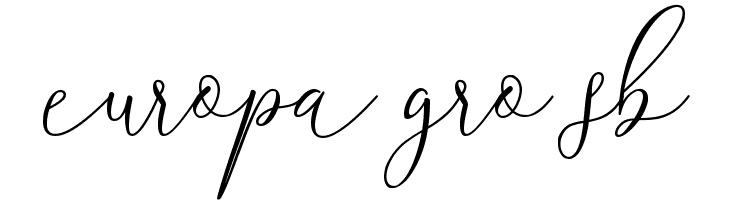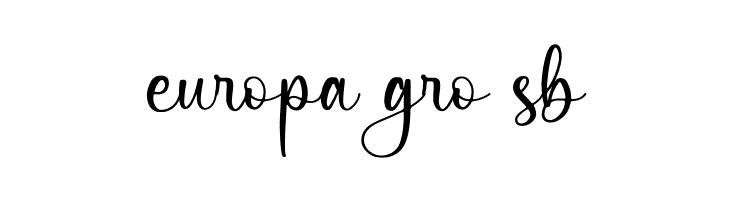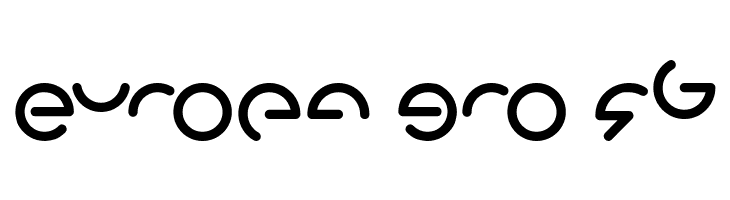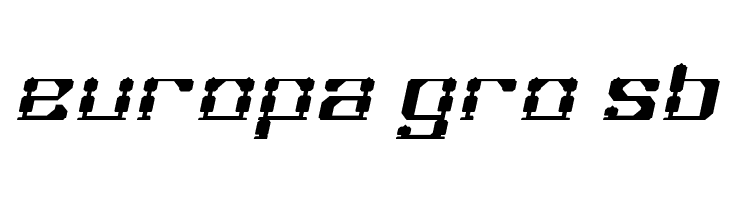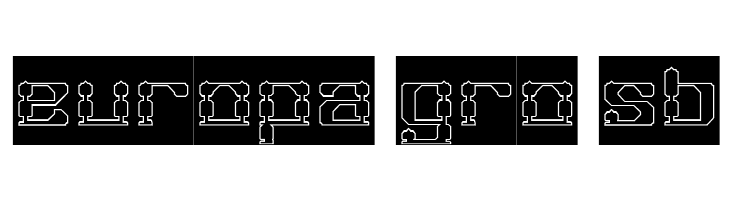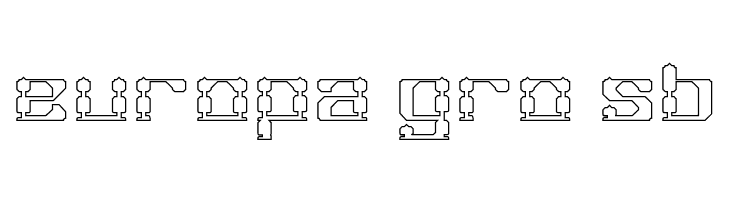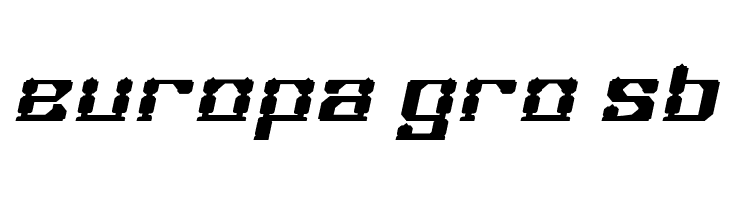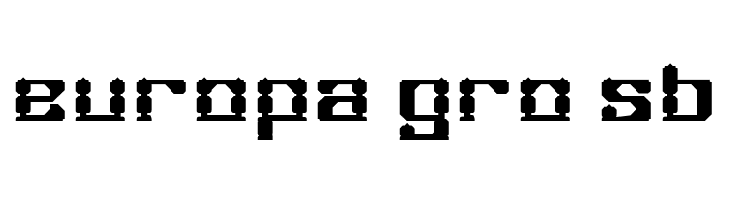
• GABRIELLE-Light
A modern, futuristic font with bold, rounded strokes and a playful yet sophisticated style.
• Gading - Personal Use
A graceful, handwritten script font with flowing, interconnected letters.
• Gailesta
A playful and elegant handwritten script font with unique embellishments.
• Gainer
A playful and energetic script font with fluid, cursive strokes.
• GAMER Bold
A bold, geometric font with a digital, arcade-inspired style.
• GAMER Bold Italic
A bold, italicized font with a pixelated, digital style ideal for modern designs.
• GAMER Italic
A bold, angular, and futuristic italic font with a digital aesthetic.
• GAMER-Hollow
A hollow, geometric font with a futuristic, tech-inspired design.
• GAMER-Hollow-Inverse
A futuristic, hollow, tech-inspired font with geometric outlines.
• GAMER-Inverse
A bold, tech-inspired font with geometric, blocky characters and cut-out sections.